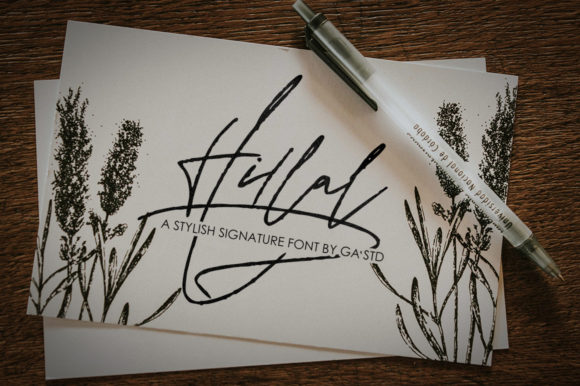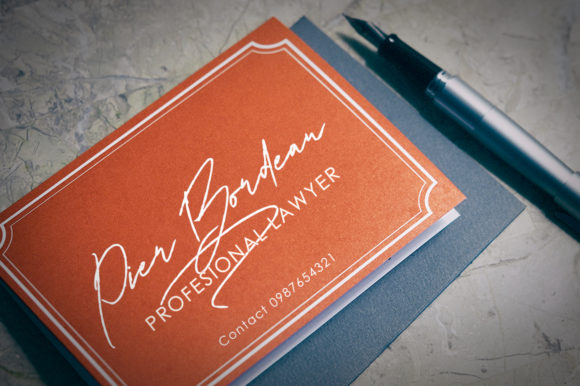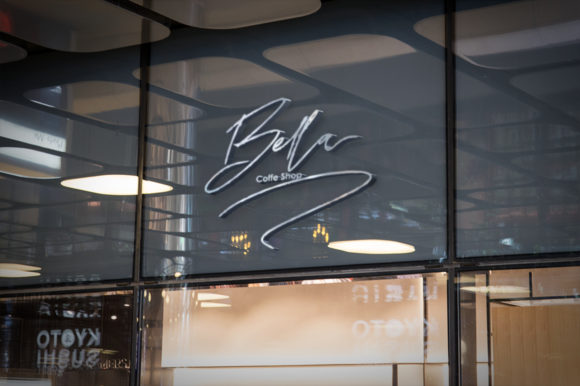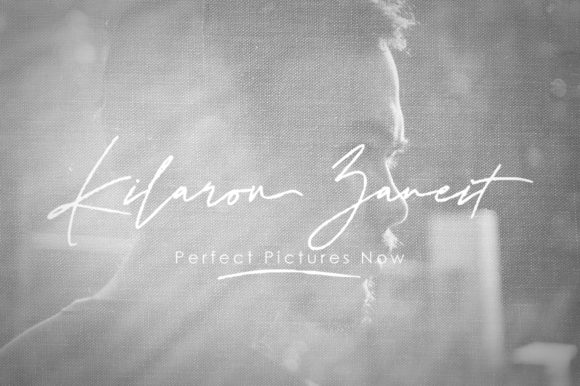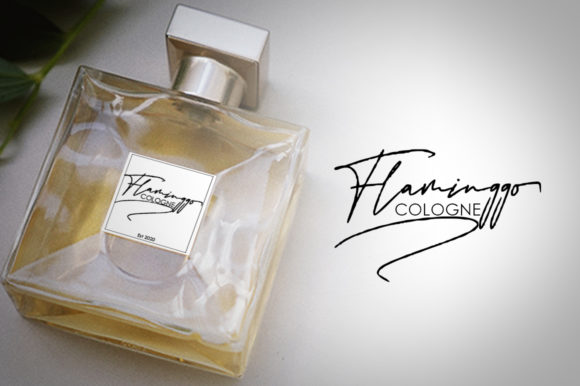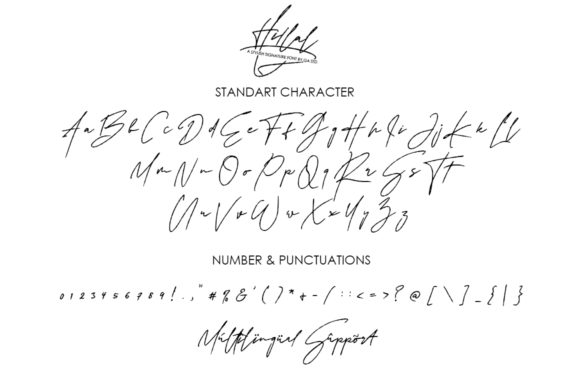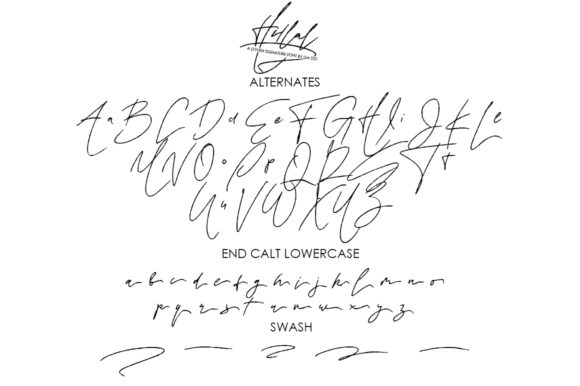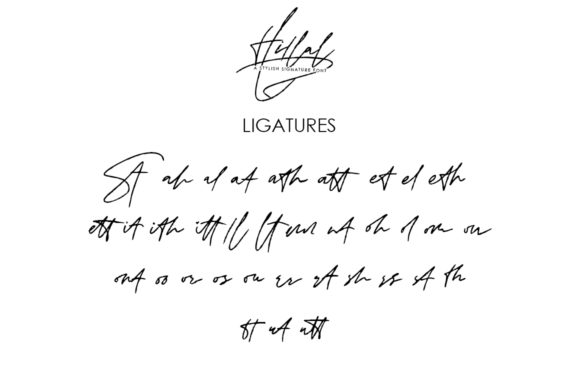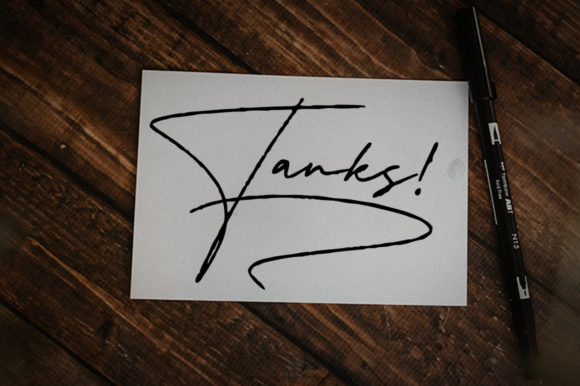
Hillal Font
About Hillal Font
Hillal is inspired by classic typography and brings its own unique style to any design project. Whether it’s for web, print, moving images or anything else this handwritten font will look spectacular.